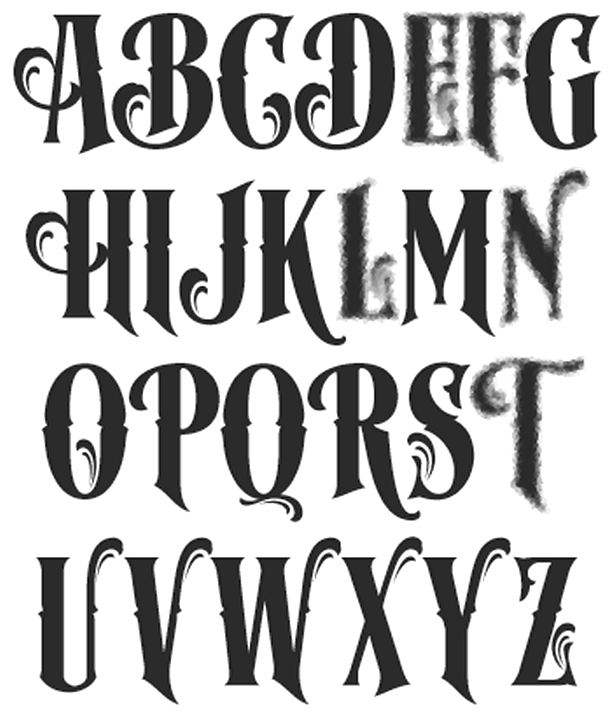
Regular), 98 Characters In Total.
Web finally, the set includes a highlight layer and two outline layers to complete the design. Each letter generates a different. Web 51 professional lhf signmaker regular fonts to download please note.